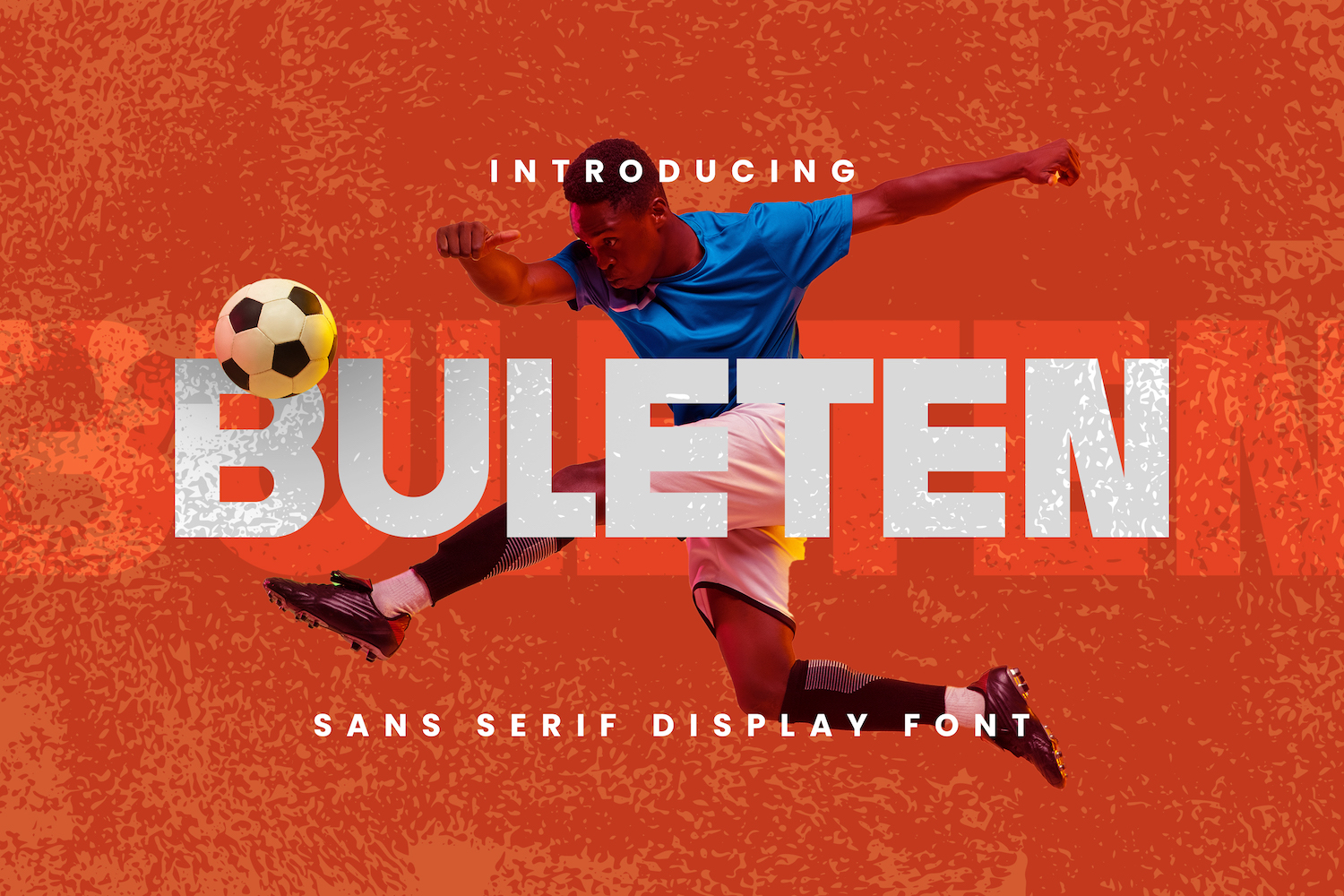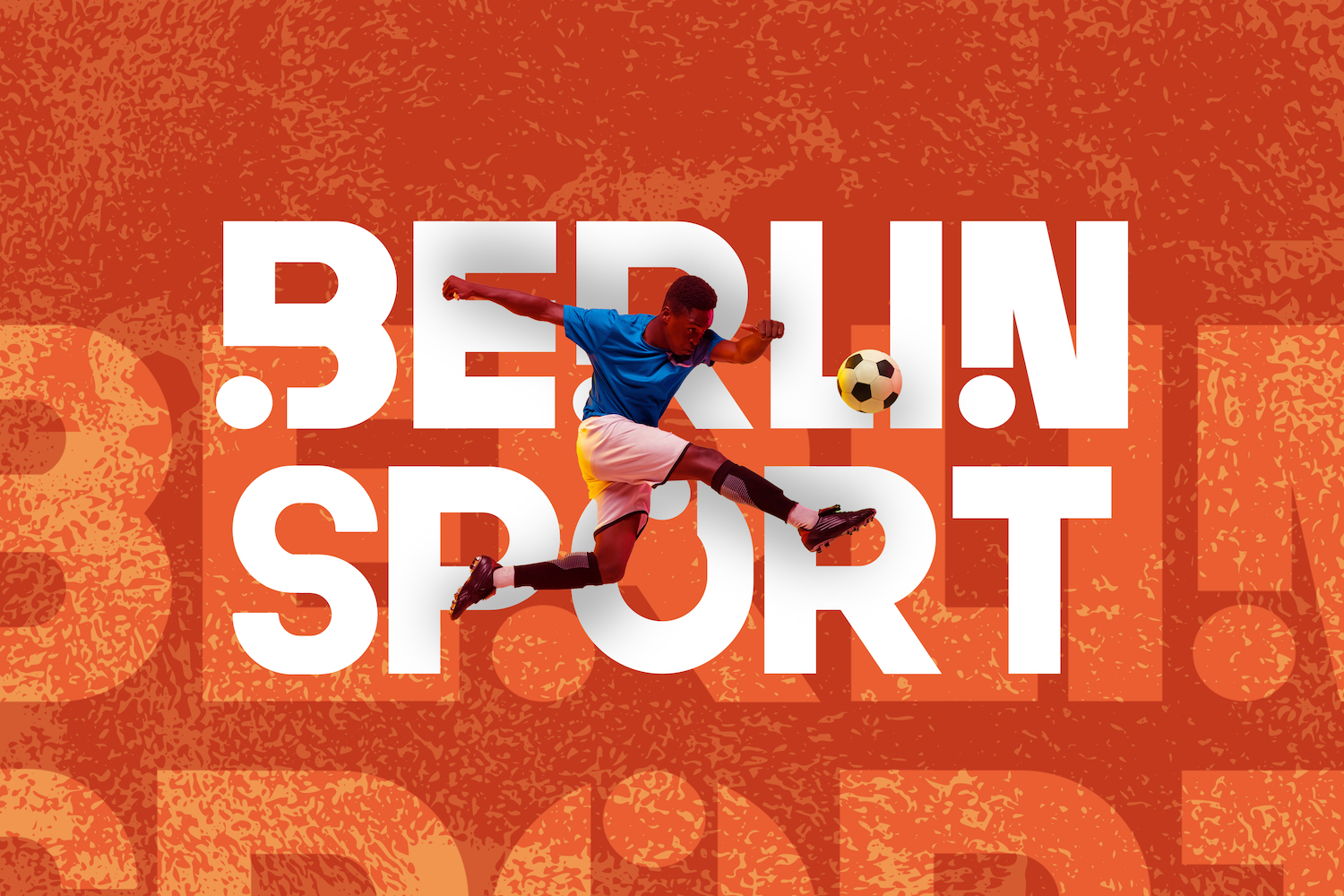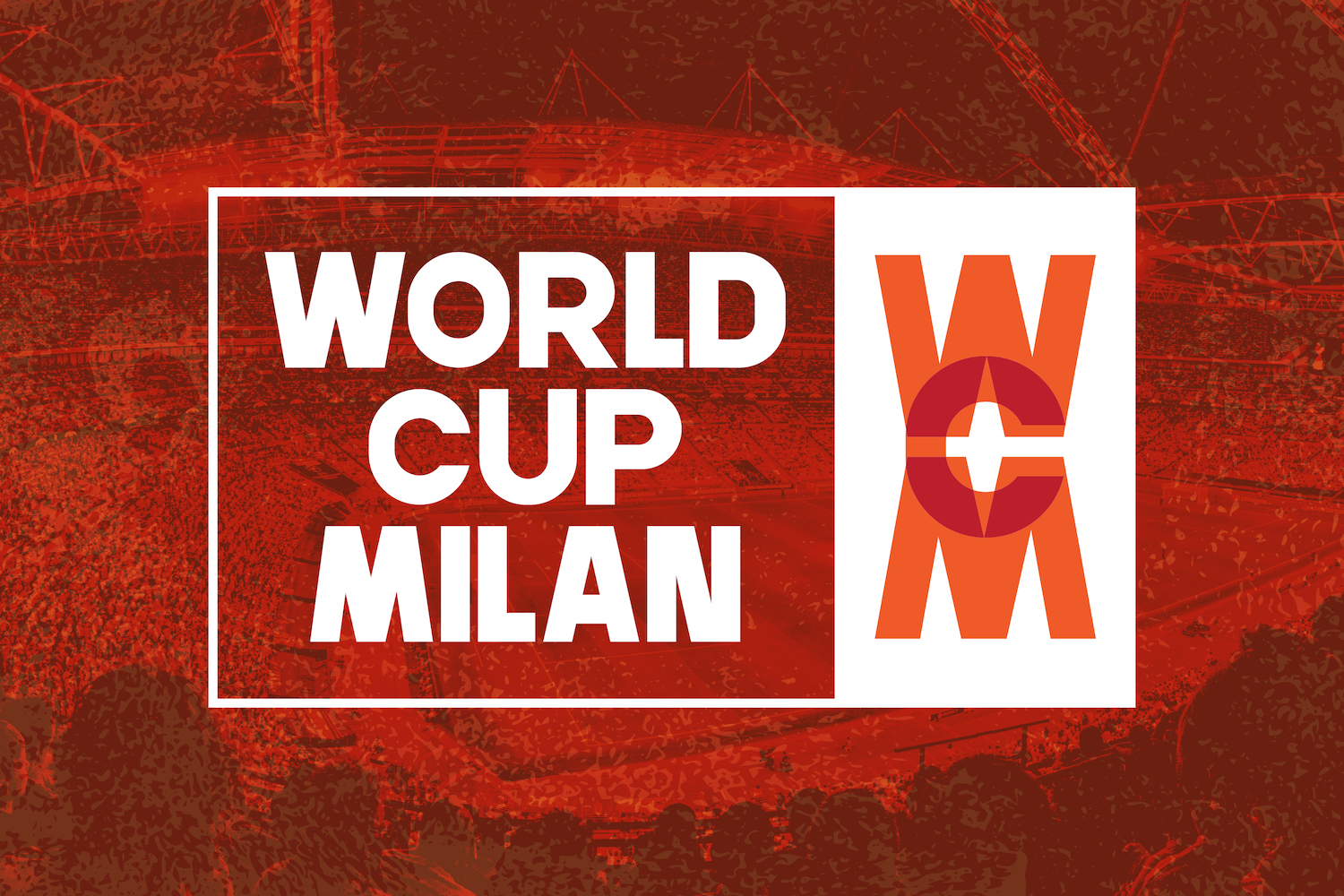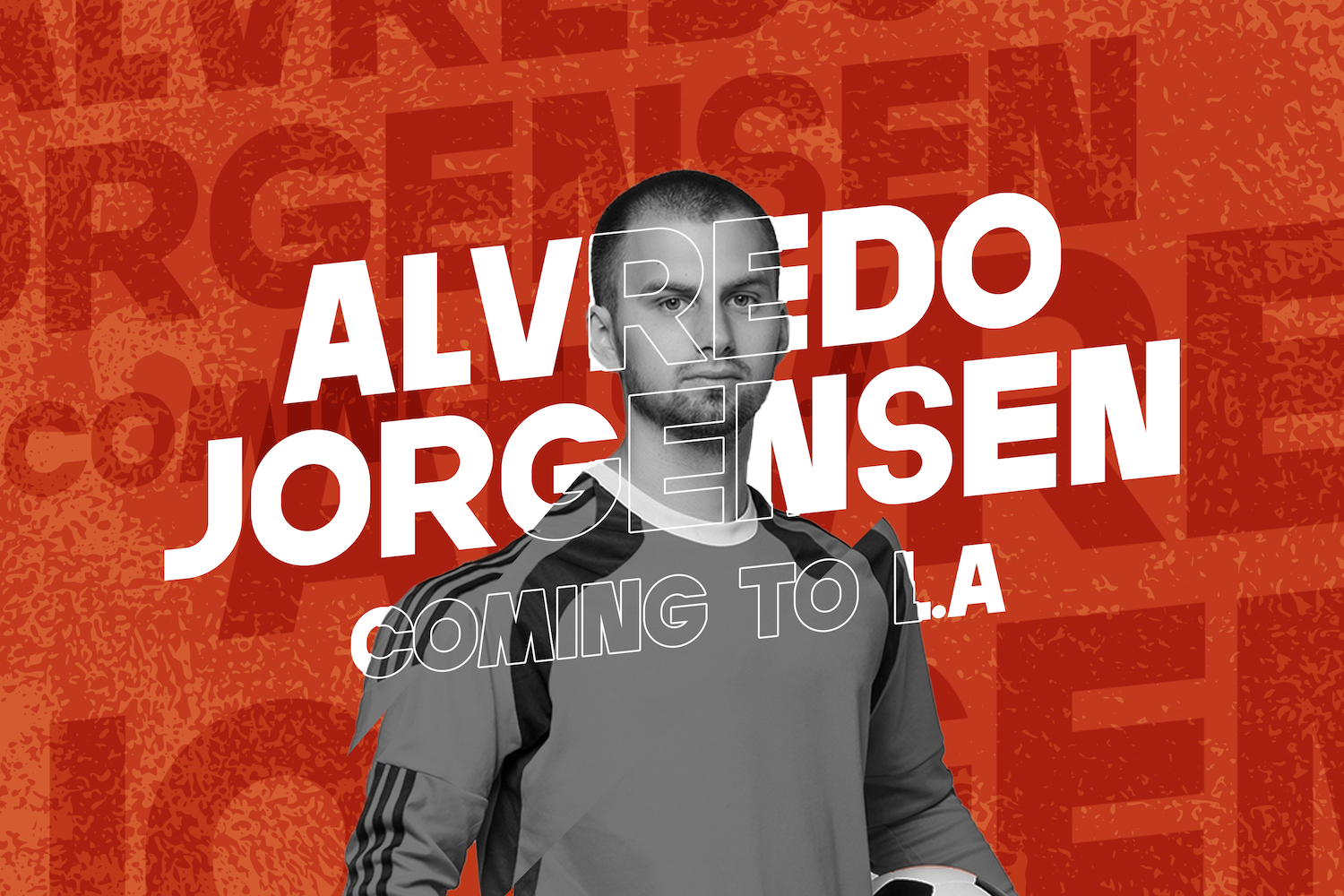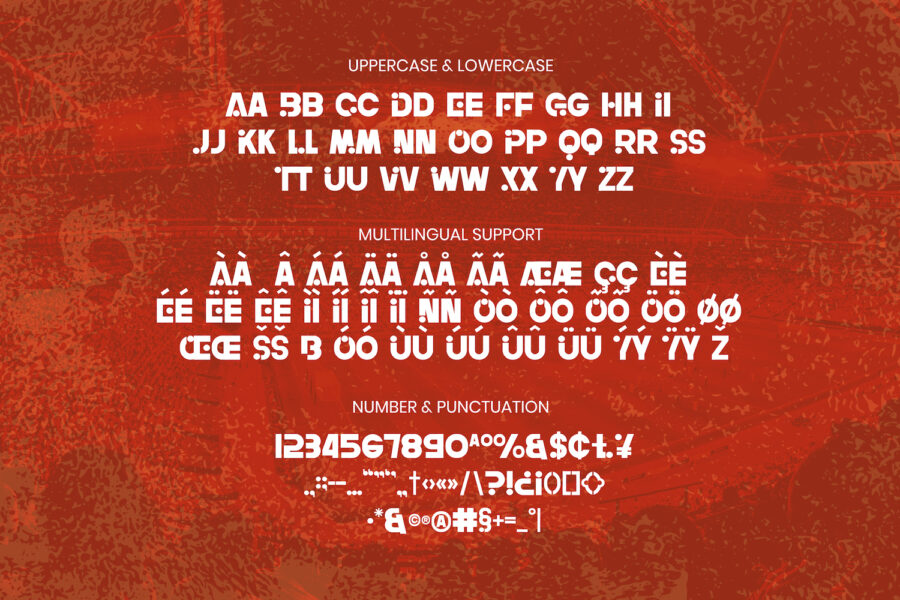
Buleten is a bold and energetic sans serif display font designed for impactful sports branding, posters, and dynamic headlines. Its thick, geometric letterforms with unique cutout details give it a modern, powerful look that instantly grabs attention. Perfect for sports events, team logos, or promotional materials, BuLeten embodies the strength, speed, and adrenaline of the game.
With full uppercase and lowercase letters, multilingual support, and a complete set of numbers and punctuation, Buleten offers both style and versatility. Whether used for stadium banners, social media graphics, or sportswear design, this font delivers a commanding presence that makes your message impossible to ignore.